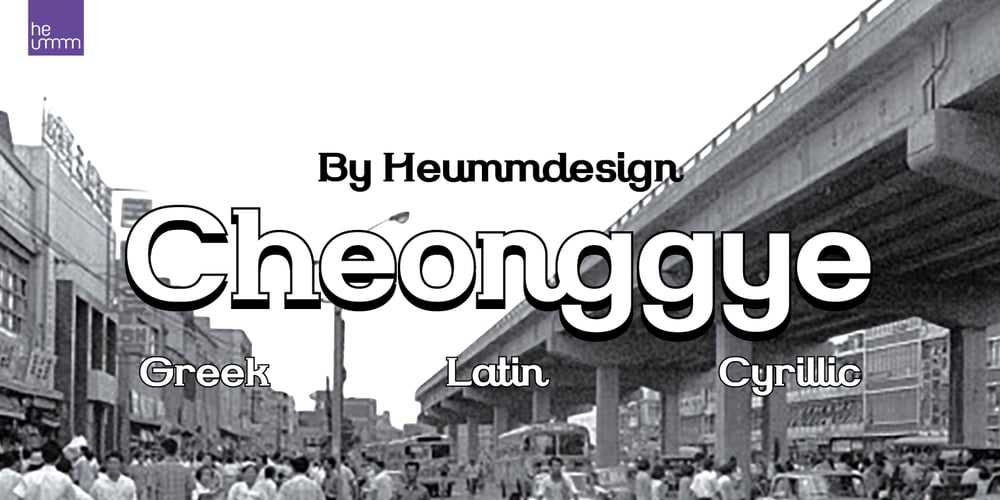
HU Cheonggye
HU Cheonggye font
HU Cheonggye Font Family was designed by Wonjoon Huh and published by Heummdesign. HU Cheonggye contains 1 styles and family package options. HU Cheonggye is a typeface for titles with thick strokes and wide flats, mainly produced with a retro feel. In order to bring out the characteristics of the retro typeface, a difference in thickness between horizontal and vertical strokes was applied, and obtuse right-angled serifs were applied.